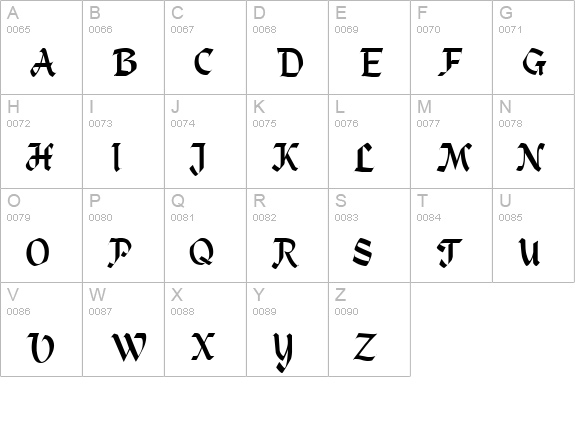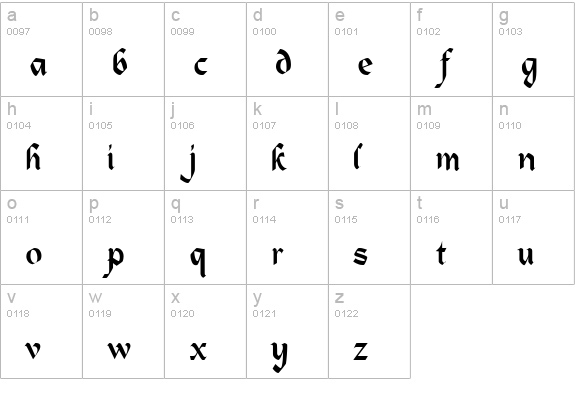
ZEPPLIN Font Details
ZEPPLIN font is a stunning display typeface that exudes a sense of elegance and sophistication. Its bold and modern design makes it perfect for a variety of creative projects, from branding to advertising and beyond. With its sleek lines and sharp edges, ZEPPLIN font commands attention and leaves a lasting impression on viewers. The best part? ZEPPLIN font is completely free to download at FontsMarket.com. This means you can add this eye-catching typeface to your collection without breaking the bank. Whether you're a seasoned designer looking to freshen up your portfolio or a newcomer eager to make a statement, ZEPPLIN font is the perfect choice for your next project. Don't miss out on this amazing opportunity to elevate your designs with this stylish and versatile font.